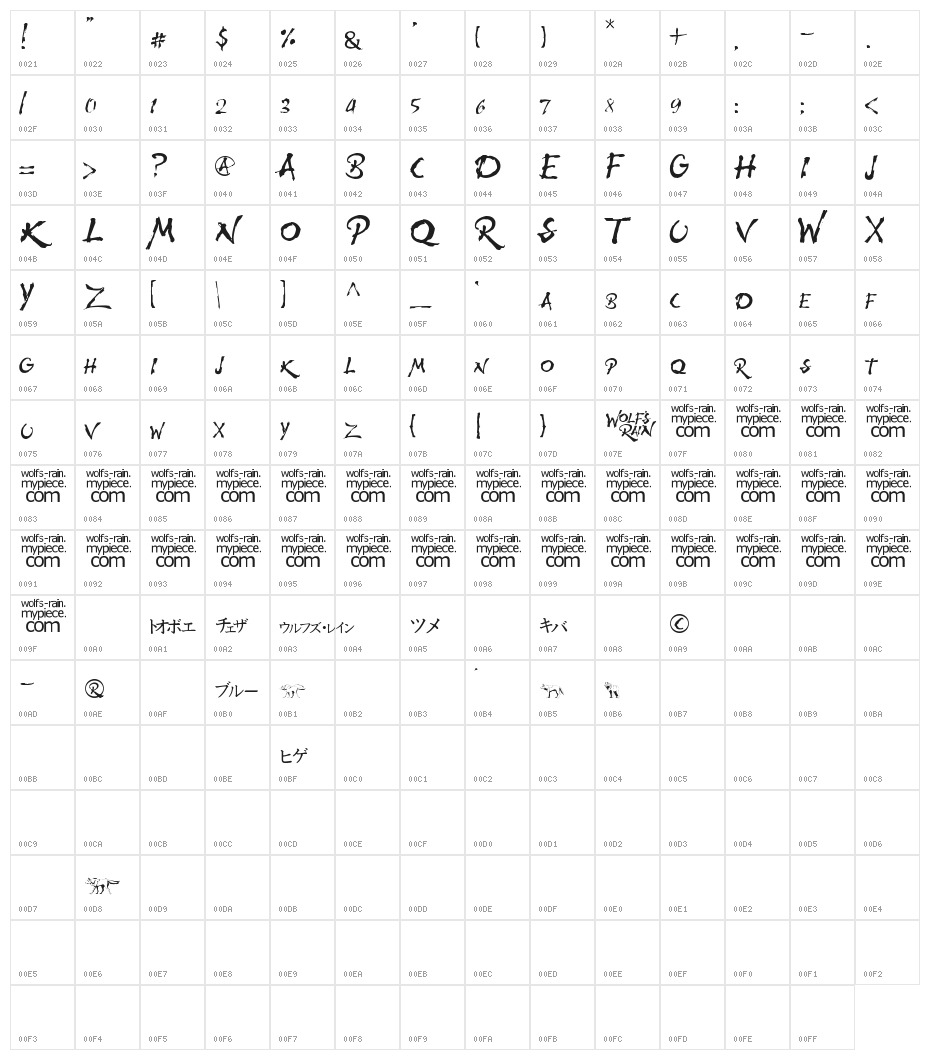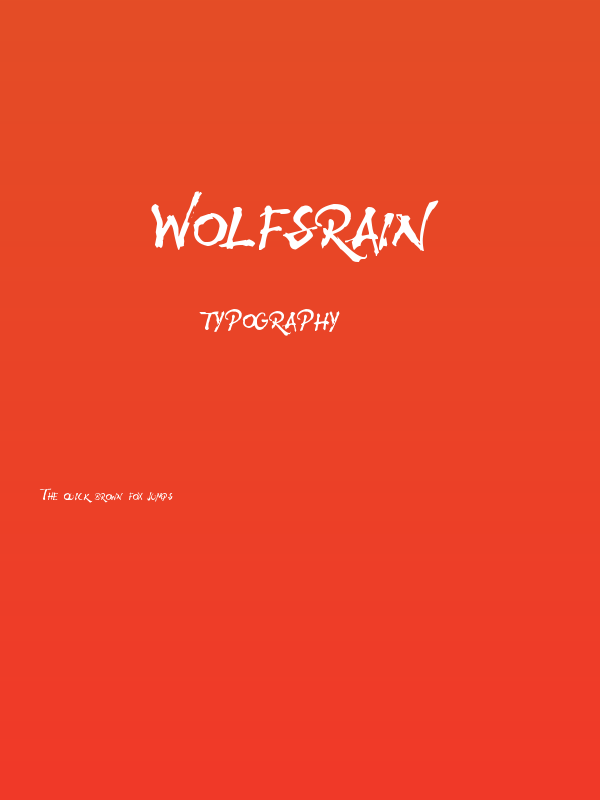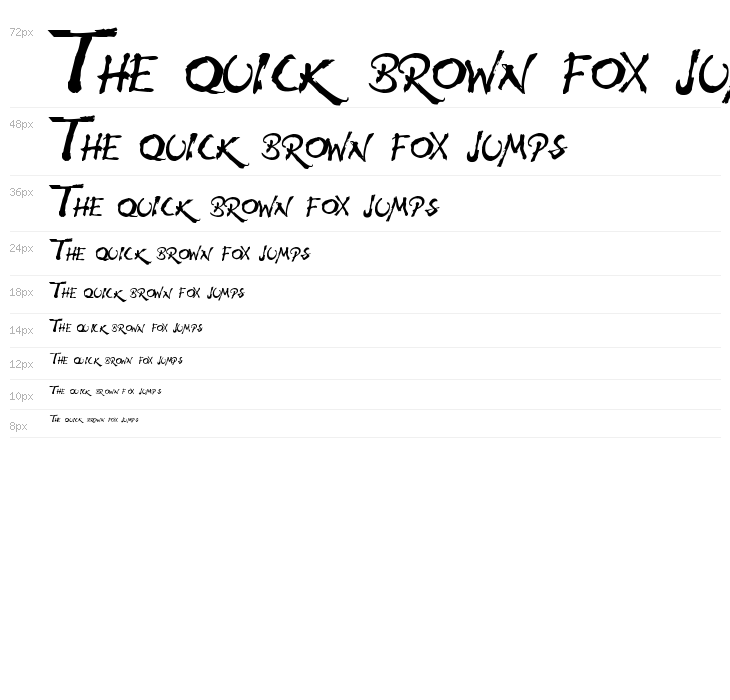
WolfsRain Font
WolfsRain Description
This font features a dynamic and expressive style, characterized by its bold, brush-like strokes that convey a sense of movement and energy. The letters have an irregular, hand-drawn appearance, with varying thicknesses that add to its artistic flair. The uppercase and lowercase letters maintain a consistent style, with some characters exhibiting unique flourishes and curves. The numerals and special characters are crafted with the same attention to detail, ensuring a cohesive look across all glyphs. This font's distinctive style makes it ideal for projects that require a bold and creative touch.